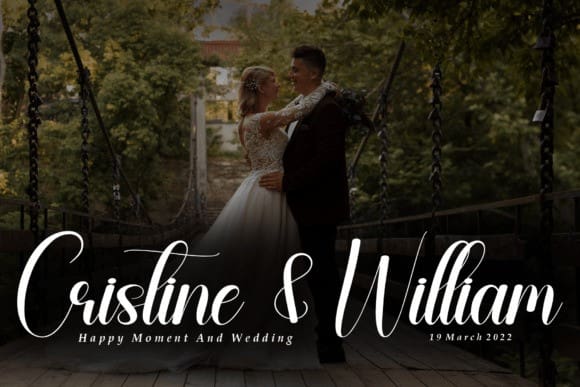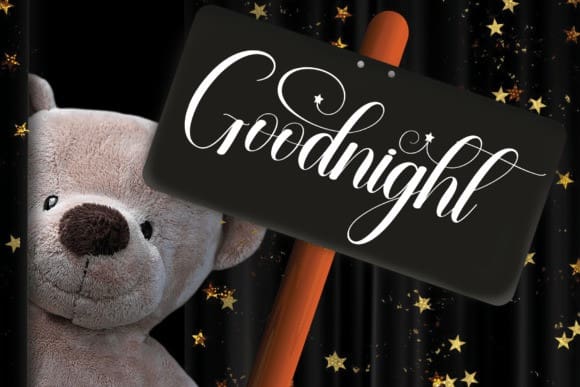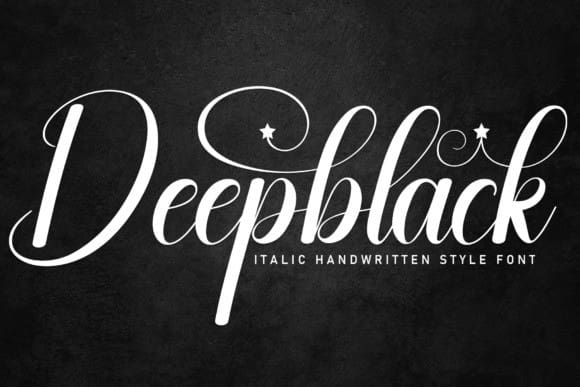
Deepblack Script Font
Deepblack Script Font. This is a sweet and friendly handwritten display font. Cute and fun, this font is ideal for writing wedding invitations, cards, or any other design that might need a fun touch!